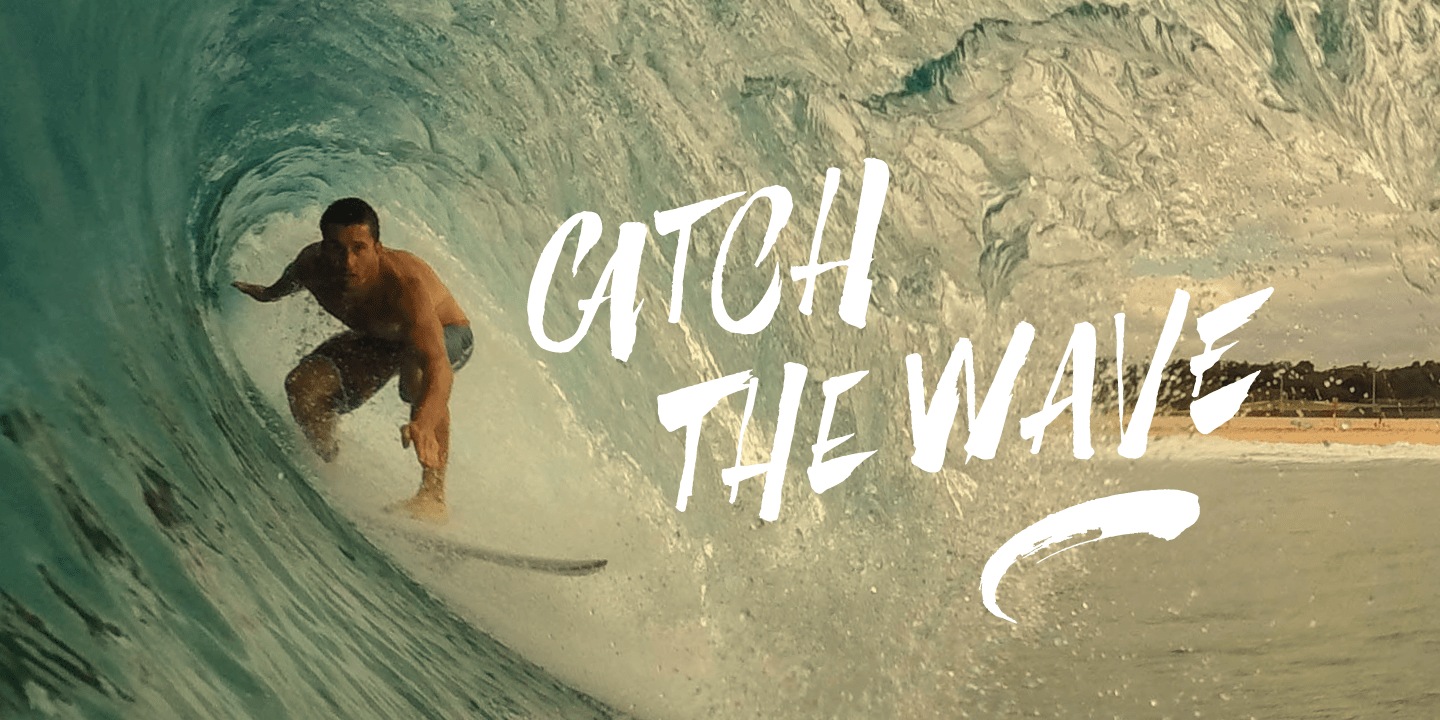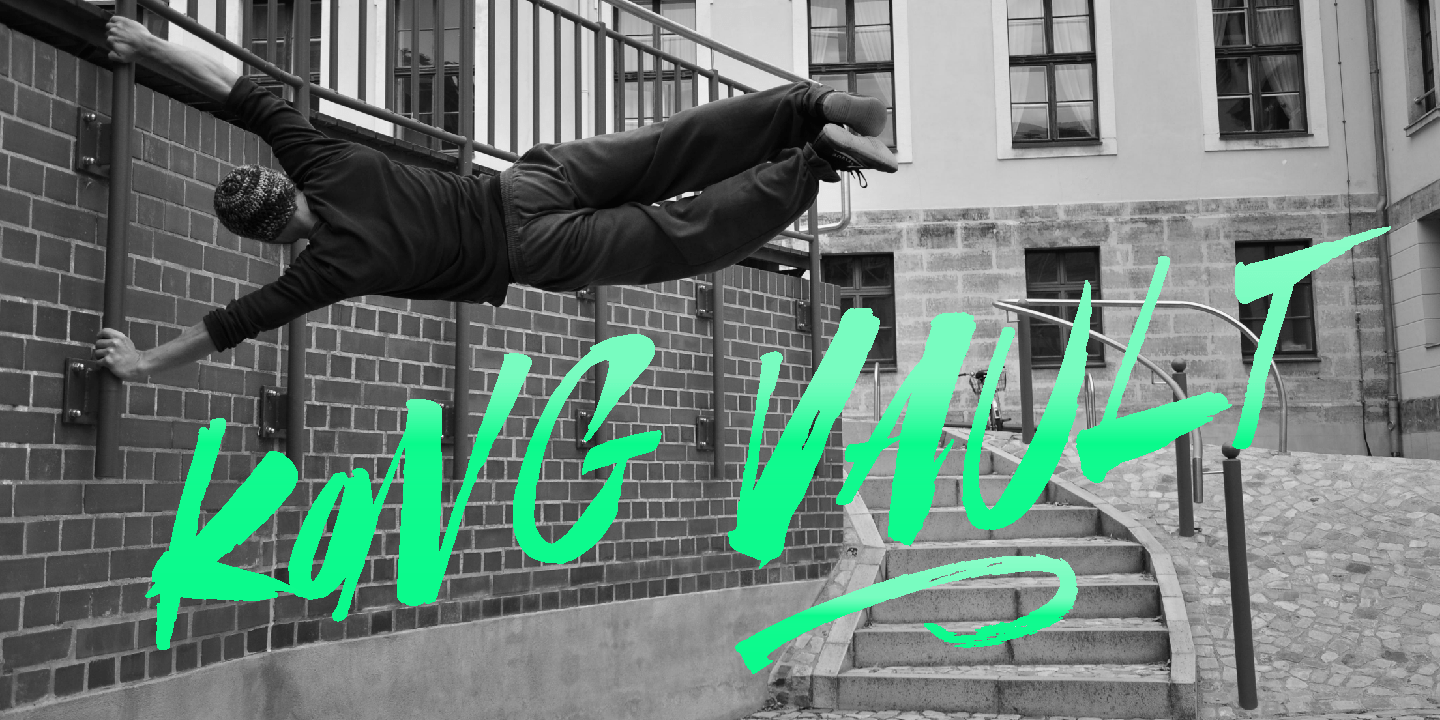
About Parkour
Parkour Brush Font takes the repertoire of moves and free spirit of this modern sport and bring it to a graphic definition. Handwritten with authentic dry brush imperfections and a bouncy baseline to evoke the energy of this urban sport discipline which…